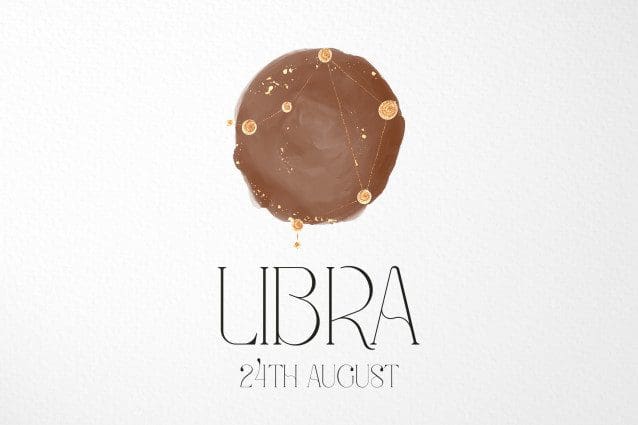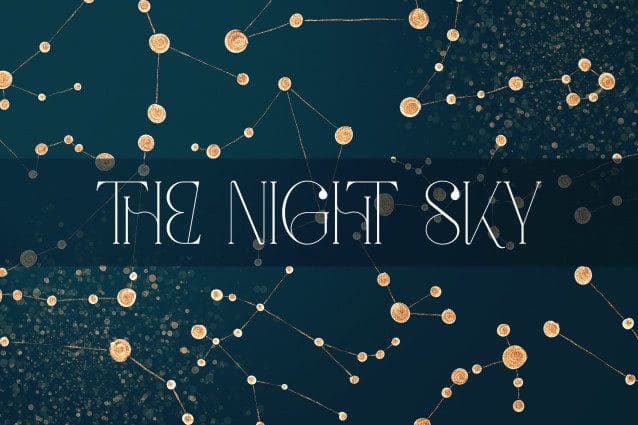
Meraki Font
Meraki Font is stylish and creative font loaded with 95 languages support, alternate and ligature glyphs, astral elements and compositions to make you typography truly unique!